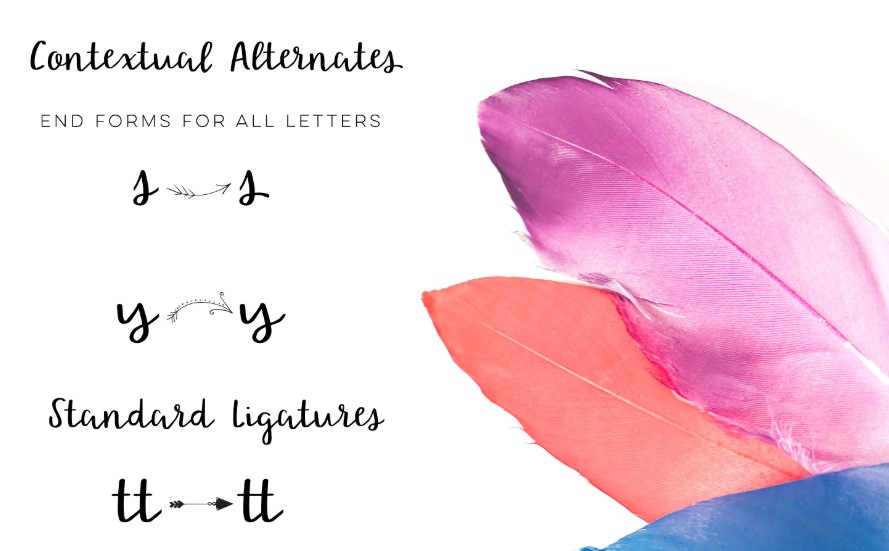
Lovely Nirvana Script Font
Lovely Nirvana Script Font that falls under the magnificence of the signature fonts. This font is used in the Tshirt printing and logo designing. This font can be very much like carosello font that abilities a present-day layout.
This font has a mysterious revel into it. It’s miles available in a single weight, every day and doesn’t have any glyphs. This is a clean typeface this is simply just like the font.